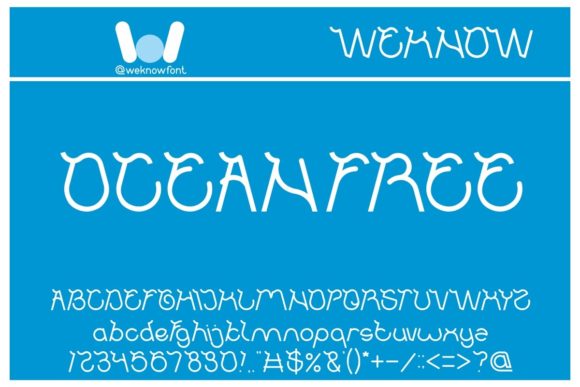
Dive into a World of Cinematic Elegance with Ocean Free Font
Step into the captivating embrace of Ocean Free, a display font family that transports your designs into a realm of cinematic enchantment. Each letter, a stroke of brilliance, unravels a tale of grandeur, inviting you to craft visual masterpieces that captivate and enthrall.
With Ocean Free, your words take on a life of their own, narrating stories with a touch of magic and mystique. Whether it's a logo that commands attention, a headline that echoes the whispers of the silver screen, or the credits that roll like a symphony, Ocean Free elevates your designs beyond the ordinary.
Immerse yourself in the boundless possibilities of Ocean Free, a font that inspires imagination and ignites the soul.
• Cinematic Charm: Unleash the cinematic allure in your designs with Ocean Free, the perfect choice for movie captions, posters, and any project seeking a touch of Hollywood glamour.
• Timeless Appeal: Ocean Free transcends trends, its timeless beauty ensuring your designs stand the test of time, always remaining relevant and captivating.
• Versatile Performer: Ocean Free effortlessly adapts to a symphony of design styles, from the bold and dramatic to the soft and ethereal. Its versatility makes it a must-have in every designer's toolkit.